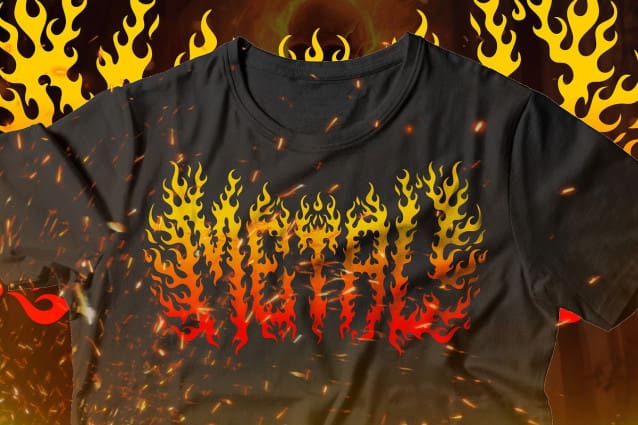
Arzon Fire Font
ARZON FIRE FONT a torrent of scorching letters that engulf the viewer in a pyre of visual brilliance. With its fiery edges, smoldering curves, and burning typography, this font is an embodiment of the flames that fuel your music’s passion.
Harness the heat of ARZON Fire for your album covers, concert promotions, merchandise, and more. Let the searing typography leave an indelible mark on your fans, branding your band with the unstoppable force of a raging wildfire.
Note: ARZON Fire is meticulously designed for optimal readability and impact, ensuring your fiery message stands out across digital and print media. Set ablaze the metal scene with ARZONFire and blaze a trail that others can only aspire to follow.